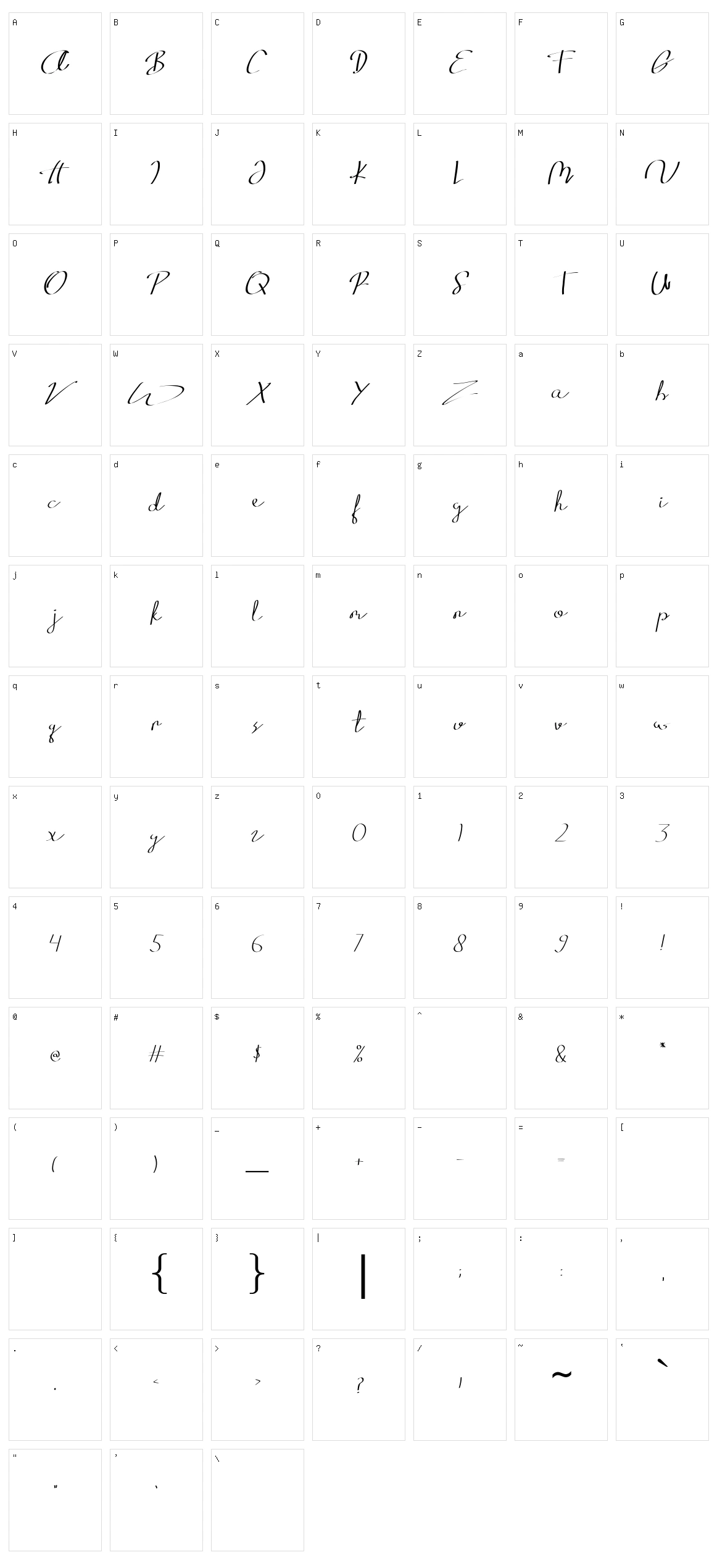
The free font Baligraphy is carefully designed by Oreon Studio, showcasing a thoughtful balance of creativity and usability and falls under the Script font style. When you download the ZIP file, it contains only 22.49 KB of font files, making it lightweight and quick to download. Please review the license details below to understand permitted usage and distribution rights. If license information is not available, we recommend using this font for personal projects only or contacting the author directly for commercial usage permissions.